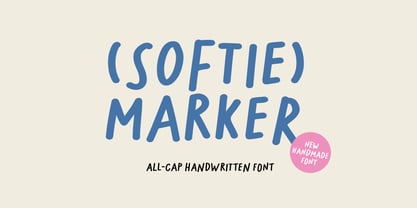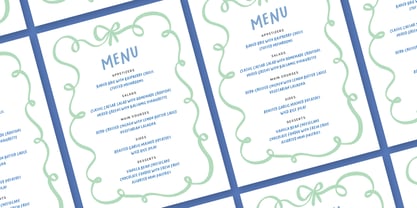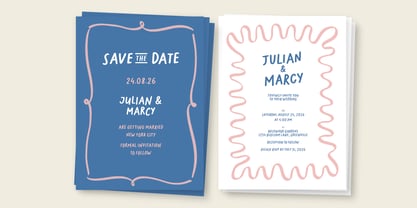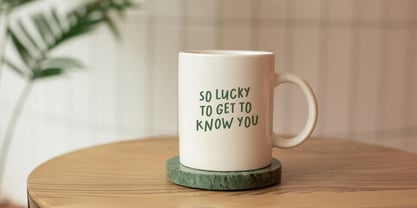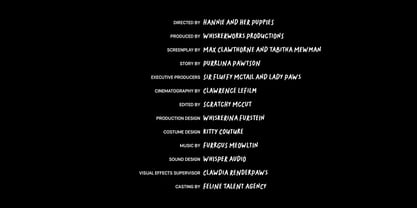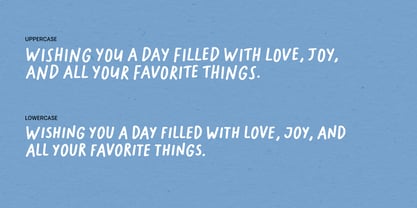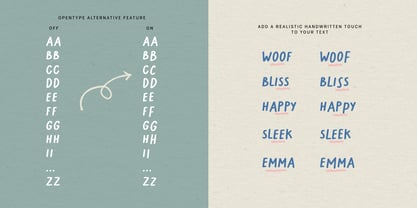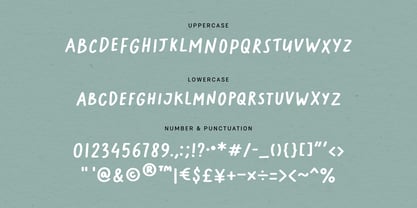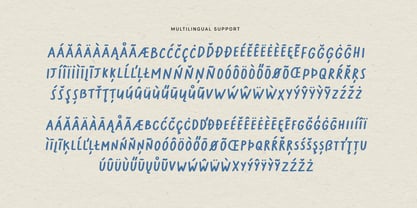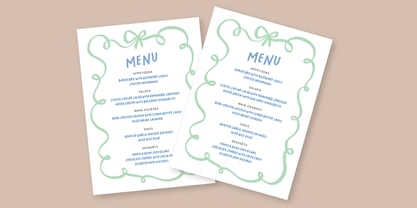
Softie Marker
by type peace
The Softie Marker Font Family was designed by Hai Anh Nguyen and published by type peace. Softie Marker contains 1 styles. More about this family
Softie Marker is a maker-style handwritten font. Perfect for adding a personal touch to your projects, from invitations and greeting cards to branding and social media graphics. Simply alternate uppercase and lowercase or turn on Contextual Alternates to add a realistic handwritten touch to your text. Font features: All-cap (with 2 alphabets), numbers, punctuations and symbols; Multilingual support; Contextual Alternates
Designers: Hai Anh Nguyen
Foundry: type peace